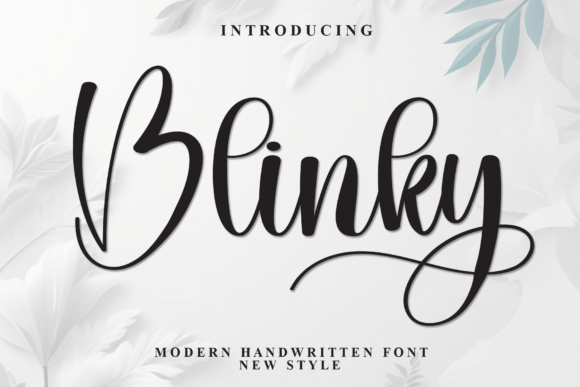
The Blinky Font: Elevate Your Design with Sophisticated Luxury
I still remember the design project that made me fall in love with the Blinky font. I was working on a luxury branding campaign for a high-end jewelry client, and I was struggling to find the perfect font that exuded elegance and sophistication. The client wanted a font that would make their brand stand out, but still convey a sense of tradition and timelessness. After hours of searching, I stumbled upon Blinky, and it was love at first sight ✨. The fluid script font with its dramatic visual rhythm and expansive flourishes instantly captured the essence of luxury calligraphy.
- ✨ Sophisticated and fluid design: Blinky’s modern handwritten style is perfect for high-end branding and luxury designs.
- ✅ Elegant flourishes: The font’s expansive, soaring flourishes give the text a clean, signature-like quality that’s hard to achieve with other fonts.
- ✅ Versatile: Blinky is suitable for a wide range of design projects, from boutique photography watermarks to elegant event stationery and professional signature-style logos.
While Blinky is an amazing font, there are a few things to keep in mind ⚠️:
- 🤔 Legibility at small sizes: Blinky’s intricate design can make it challenging to read at very small sizes. It’s best used at larger sizes where its beauty can shine.
- ⚠️ Pairing with other fonts: Blinky’s strong personality means it can be tricky to pair with other fonts. Stick to simple, clean fonts to avoid visual overload.
The Story Behind Blinky
Blinky was designed by a team of typographers who wanted to create a font that captured the essence of modern luxury calligraphy. Inspired by the works of famous calligraphers, they crafted a font that would be both elegant and sophisticated. The result is a font that’s perfect for high-end designs and luxury branding.
Q: What is the best use for Blinky?
A: Blinky is perfect for high-end luxury branding, boutique photography watermarks, elegant event stationery, and professional signature-style logos.
Q: Is Blinky difficult to read?
A: Blinky’s intricate design can make it challenging to read at very small sizes. It’s best used at larger sizes where its beauty can shine.